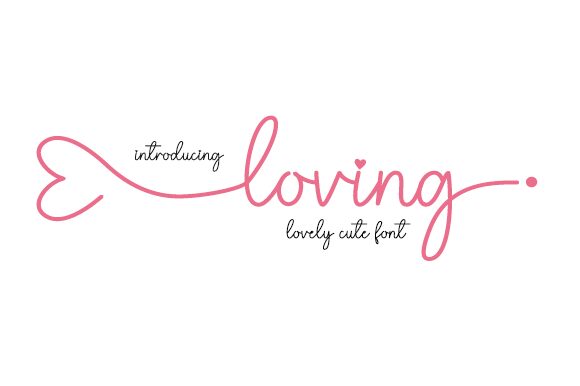
Loving, a charming handwritten font designed by Danar Nugroho, exudes a delicate and graceful touch. With its extra-light weight, it brings an air of elegance to any project.
Perfect for wedding invitations and romantic cards, this font adds a personal and intimate feel to love letters or heartfelt messages. Its flowing strokes and gentle curves make it also suitable for feminine branding projects such as beauty products or boutique logos.
The Loving font captivates the eye with its tenderness, making it an ideal choice for poetry books or heartfelt quotes on social media graphics.